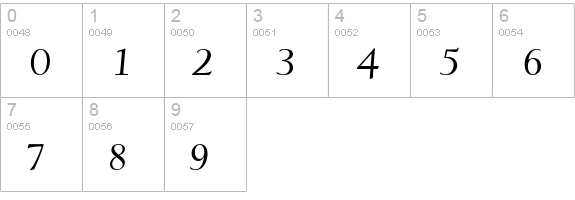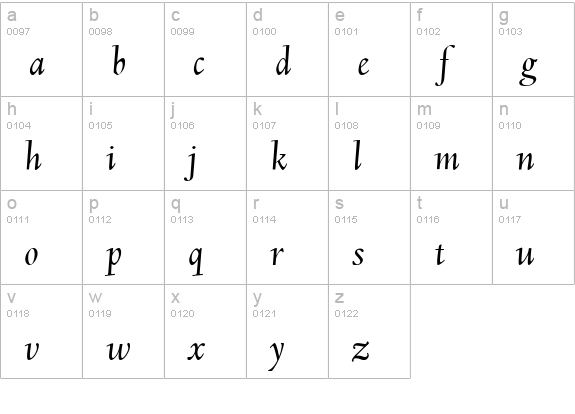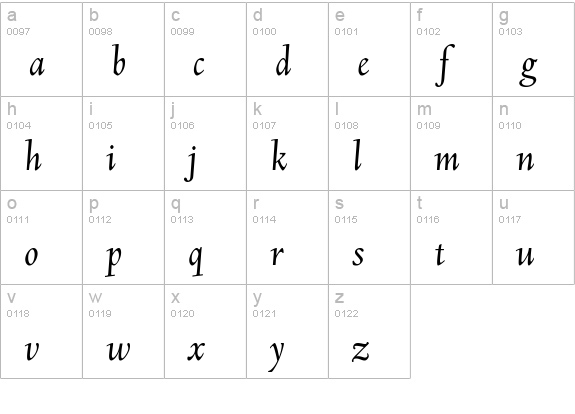
Deepdene Italic is a distinctive, italic variant in the Deepdene typeface family \xE2\x80\x94 well suited to design and typography projects.
Deepdene Italic is a beautifully crafted font that exudes elegance and sophistication. Its flowing lines and gentle curves give it a sense of grace and style that is perfect for adding a touch of class to any design project. The italic style adds a sense of movement and dynamism to the text, making it stand out and draw the eye. One of the best things about Deepdene Italic is that it is completely free to download. You can easily access this stunning font at FontsMarket.com without any cost. Whether you are working on a personal project or a professional design, Deepdene Italic is sure to elevate your work and give it a polished and refined look. Add a touch of luxury to your designs with this exquisite font today.